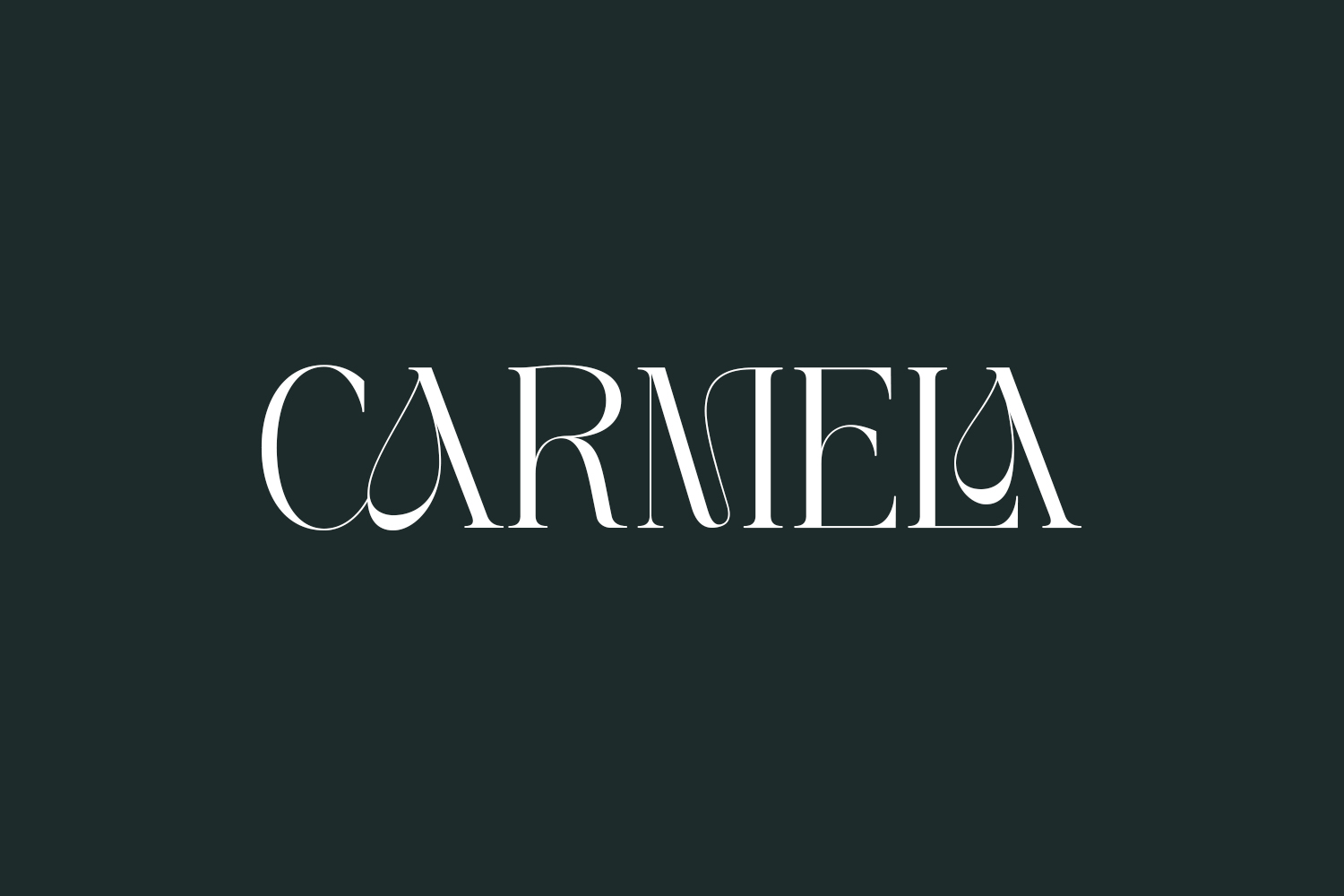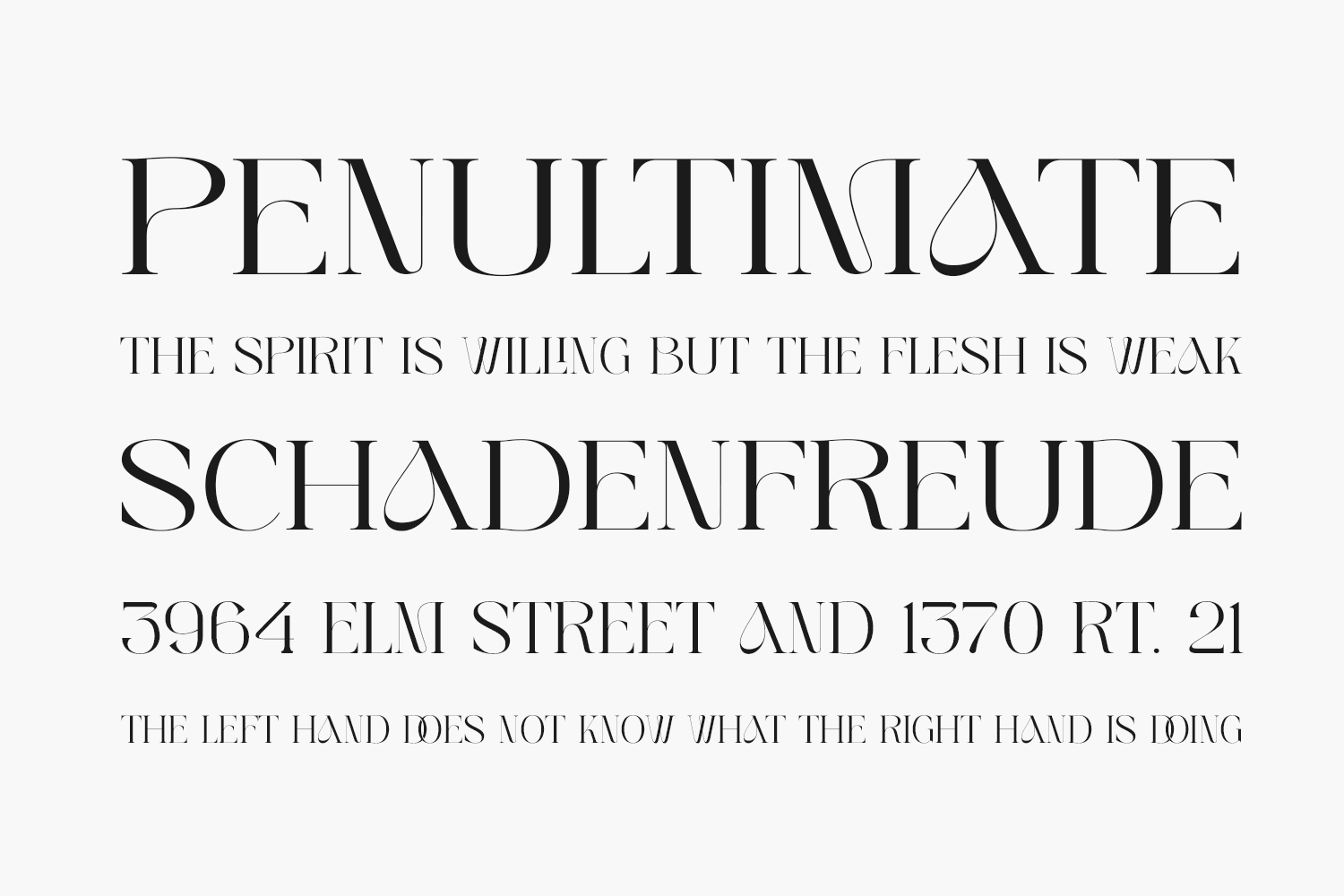
Discover Carmela Free Font, a sophisticated serif font designed to infuse your projects with luxury and style. Ideal for logotypes, branding, wedding monograms, invitations, blog titles, and beyond, it elevates every design with its elegance. Explore the previews to unleash your creativity and find inspiration with the timeless beauty of Carmela font. Download the font for free if you need it for personal use or purchase the full version for commercial use.
Designed by ToniStudio